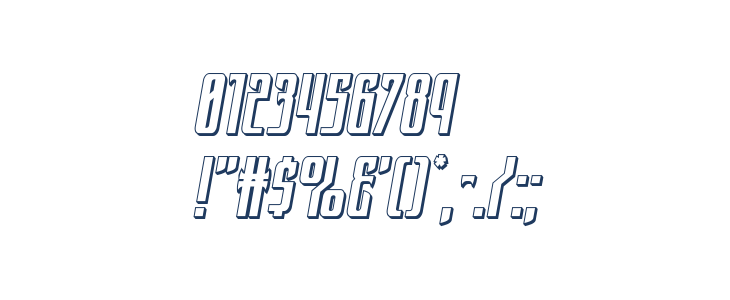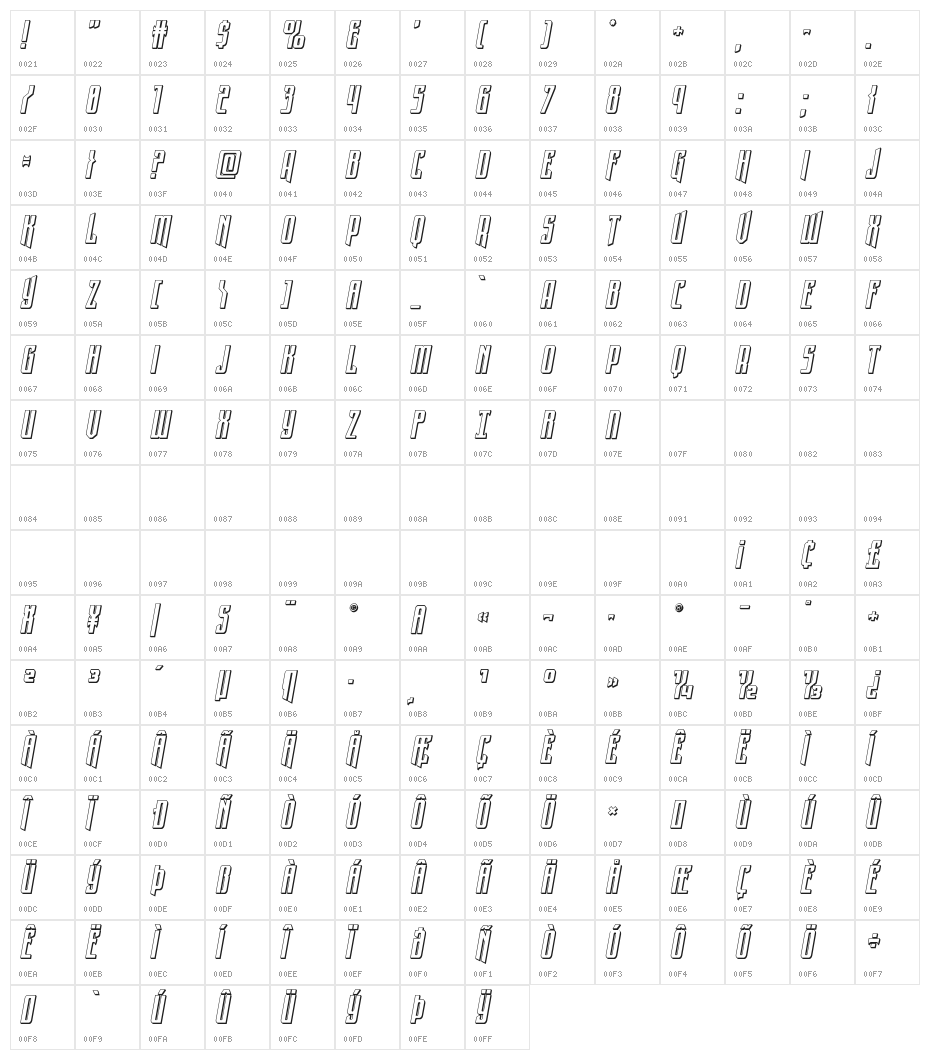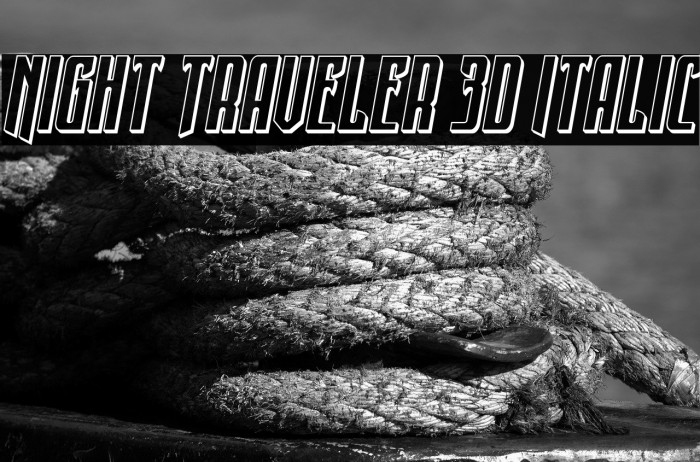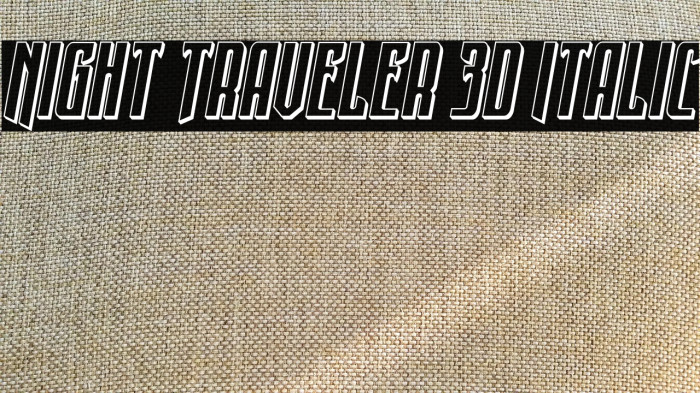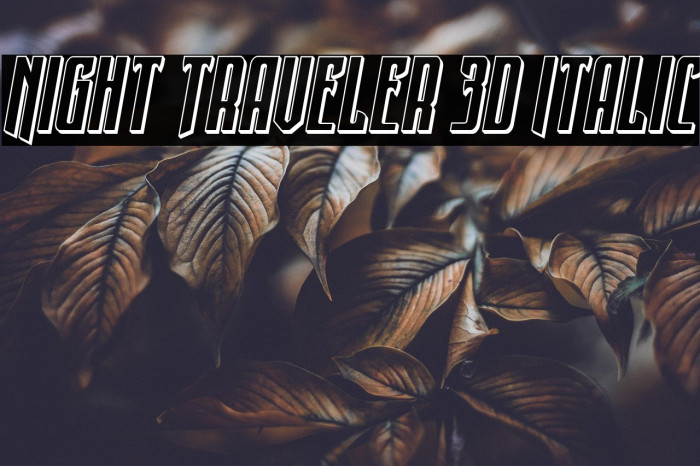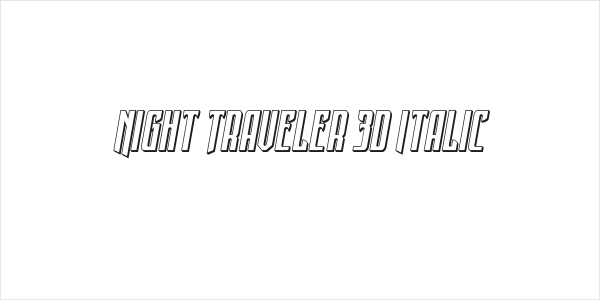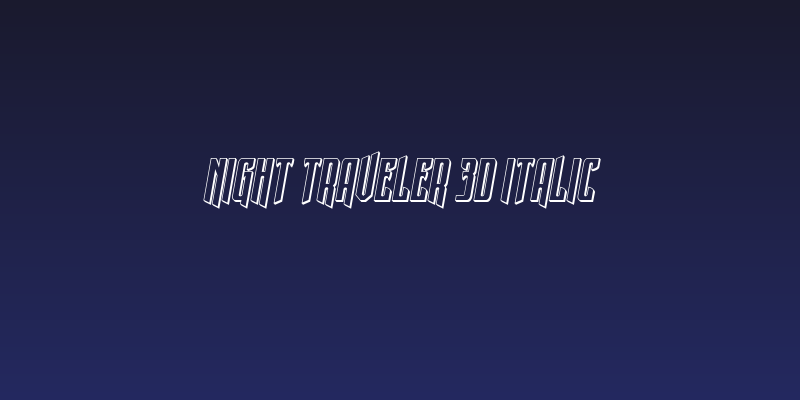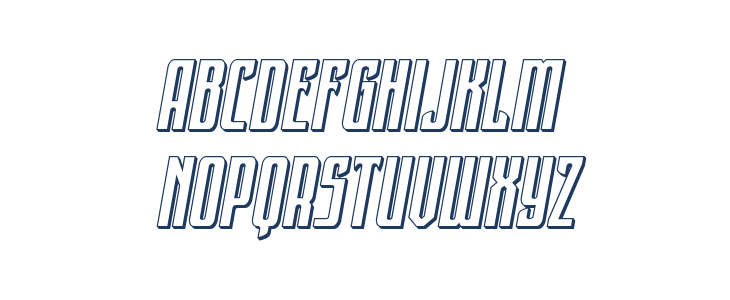
Night Traveler 3D Italic Font
Night Traveler 3D Italic Description
This font features a bold, three-dimensional design with an italic slant, creating a dynamic and futuristic appearance. The characters are outlined, giving them a striking and impactful look. The uppercase and lowercase letters maintain a consistent style, with sharp angles and a sense of movement. The numbers and special characters follow the same design principles, ensuring uniformity across all glyphs. This font is perfect for projects that require a modern and edgy aesthetic, such as sci-fi themed designs, video game titles, or eye-catching posters.
Proposed ProjectsIdeal for sci-fi themes, video game titles, posters, and modern branding.